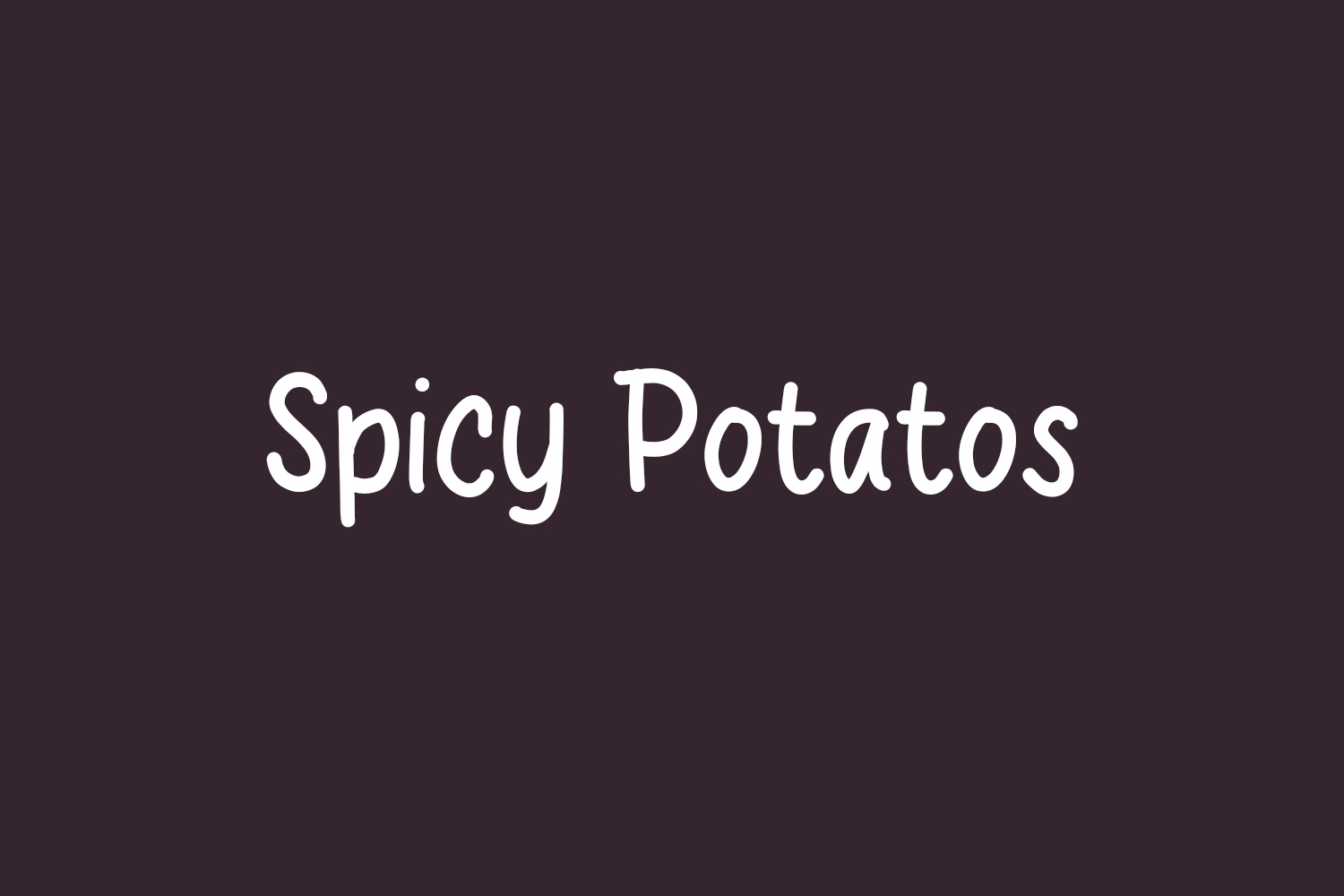
Introducing Spicy Potatoes Free Font, a contemporary and charming handwritten display font ideal for a wide range of design applications, including posters, logos, magazines, book covers, banners, and more! Elevate your designs with this incredible font, versatile enough to enhance a vast array of projects. Incorporate it into your creative concepts and experience the transformative impact it brings. Spicy Potatos Free Font is free for personal use only. Please purchase the full version for commercial use.